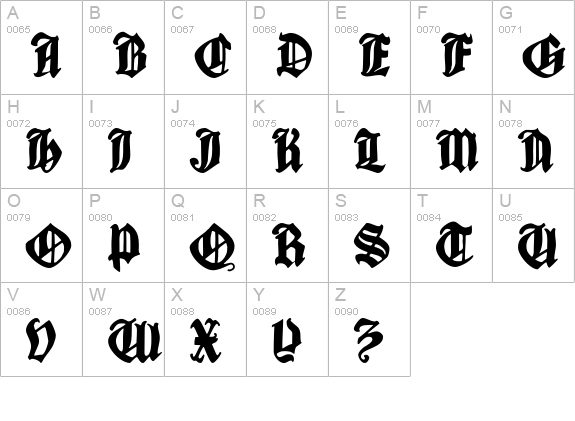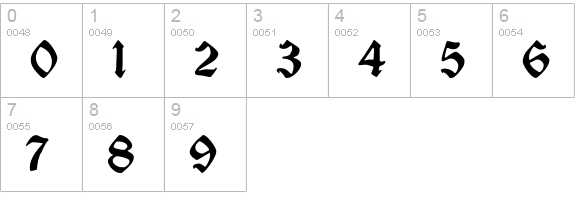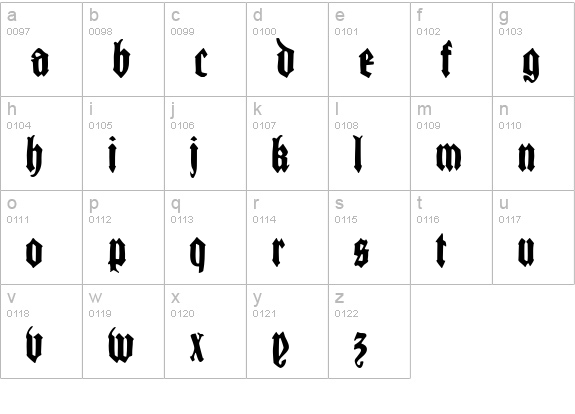
CantaraGotica Font Details
CantaraGotica is a stunning display font with a bold and elegant design that captures attention and adds a touch of sophistication to any project. This versatile font is perfect for branding, headlines, posters, and more. With its intricate details and unique style, CantaraGotica exudes a sense of luxury and class. What sets CantaraGotica apart is not only its striking appearance but also the fact that it is completely free to download at FontsMarket.com. This means that you can elevate your designs without breaking the bank. Whether you are a professional designer or a hobbyist looking to add a touch of flair to your projects, CantaraGotica is the perfect choice. Download this exquisite font today and let your creativity shine!